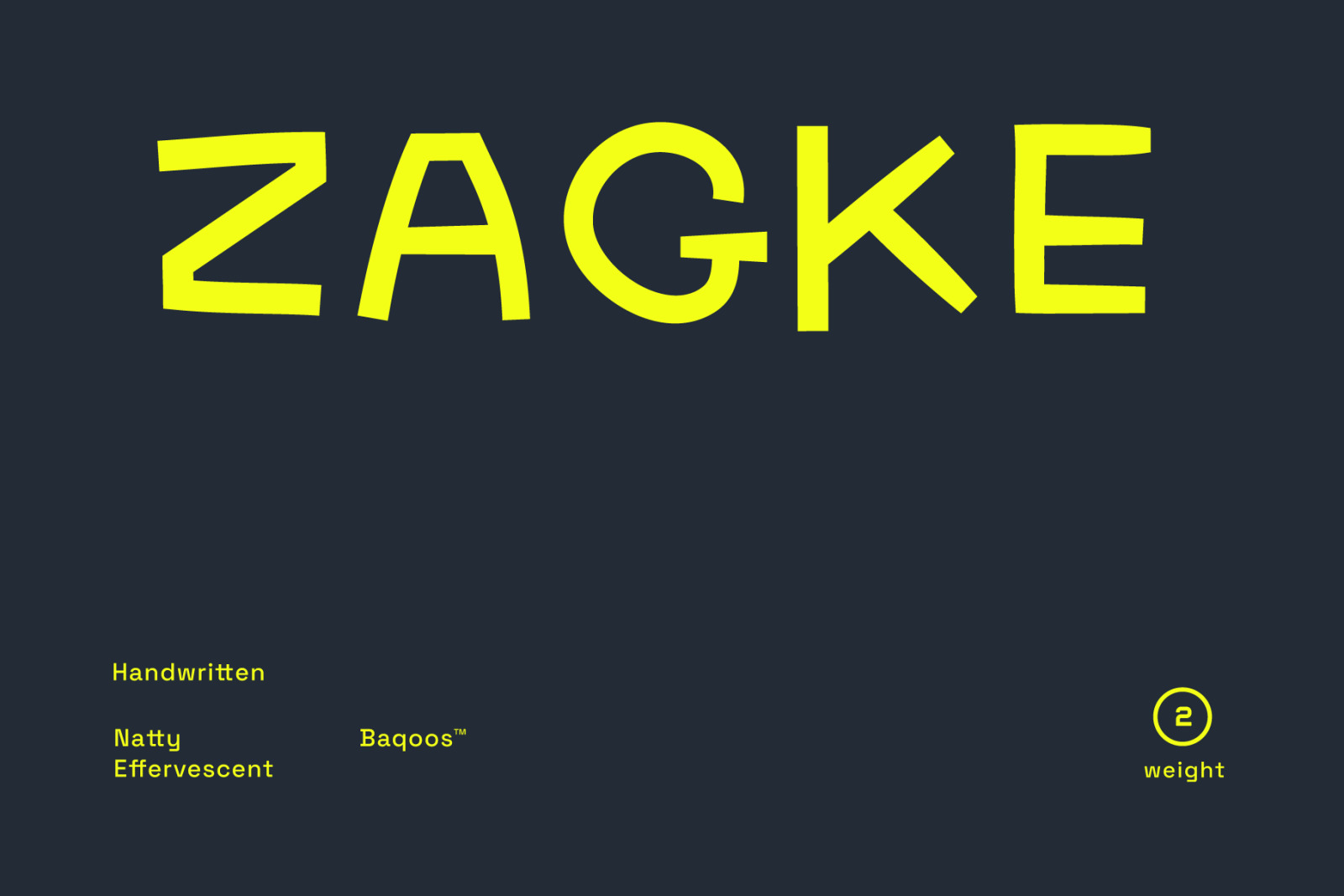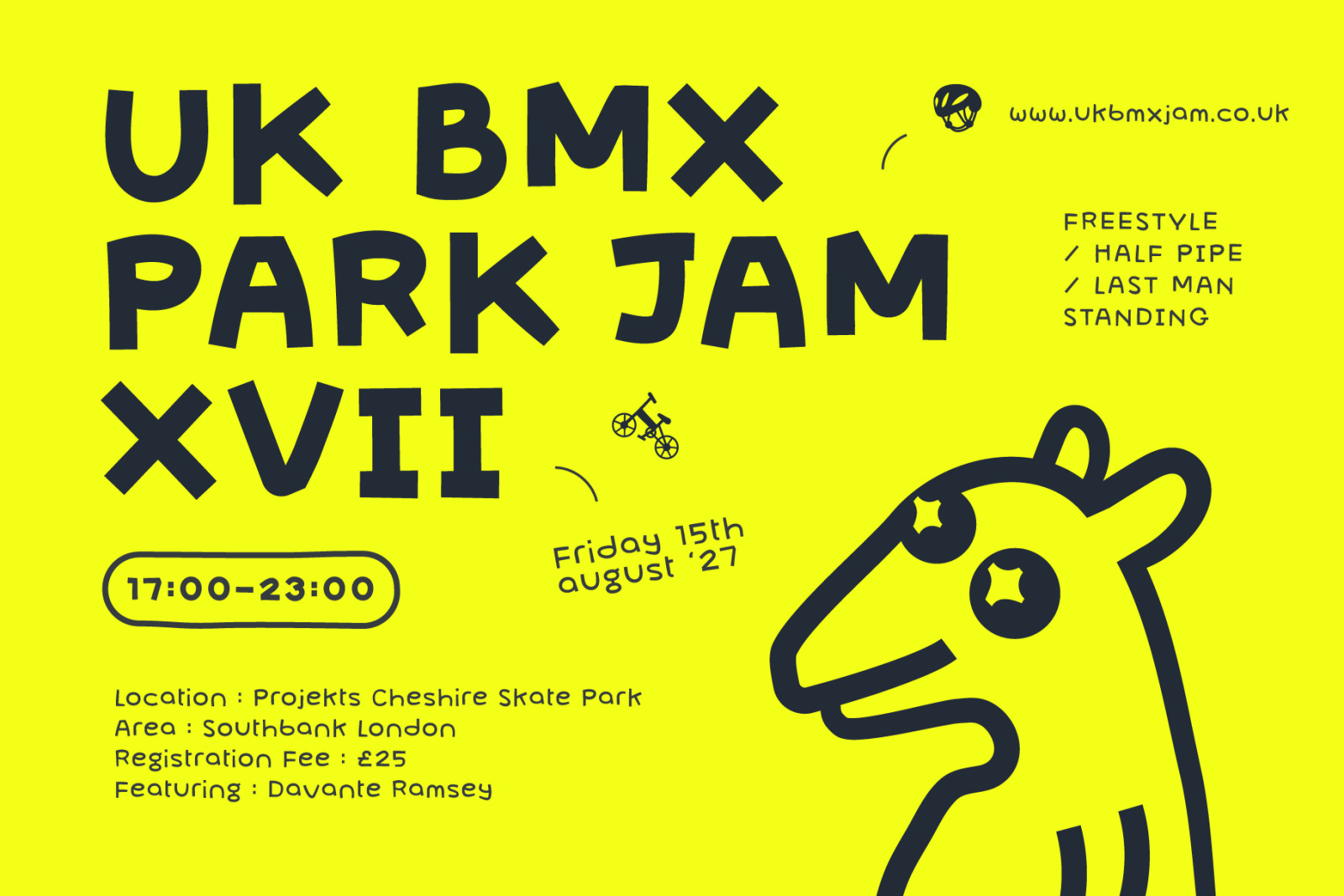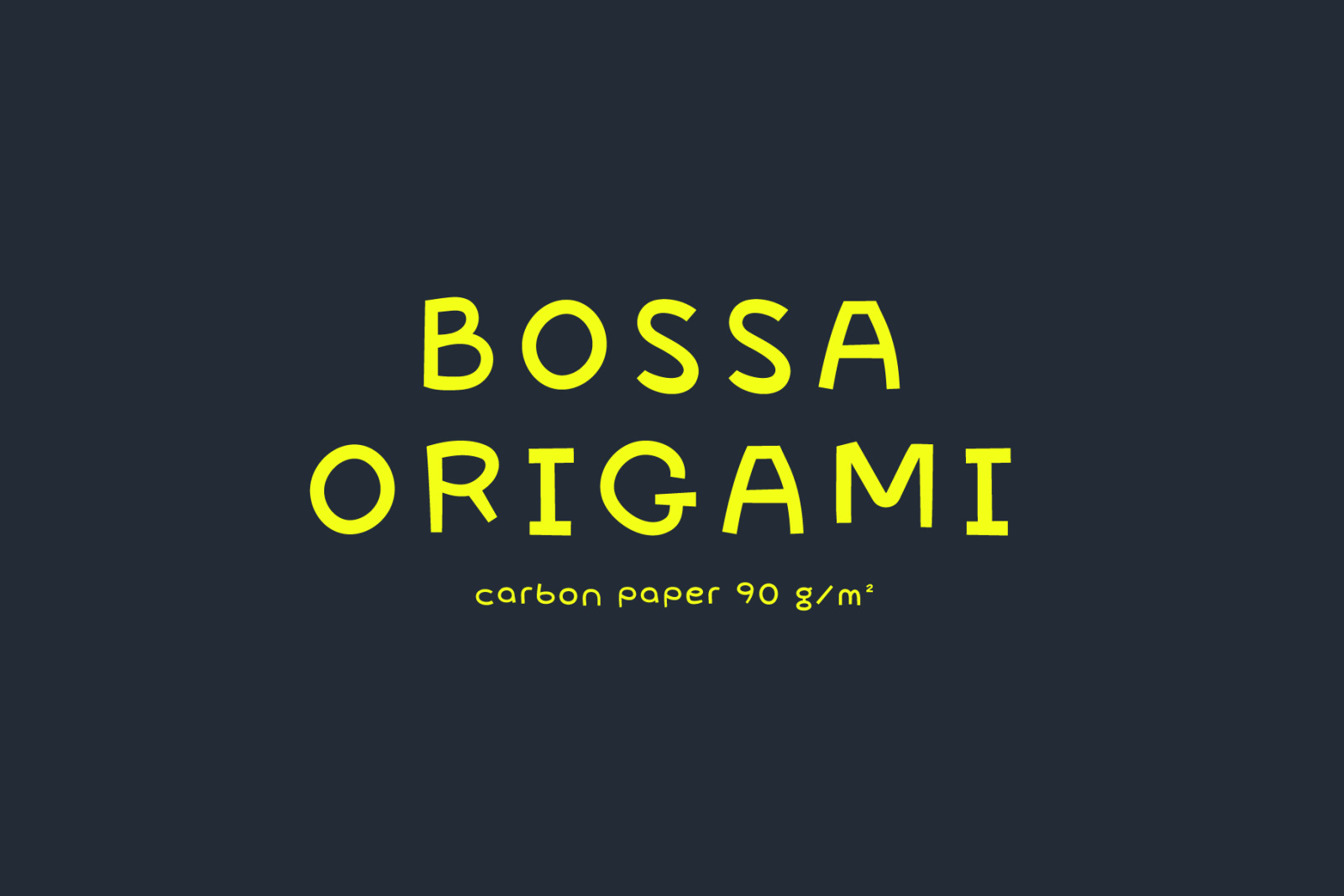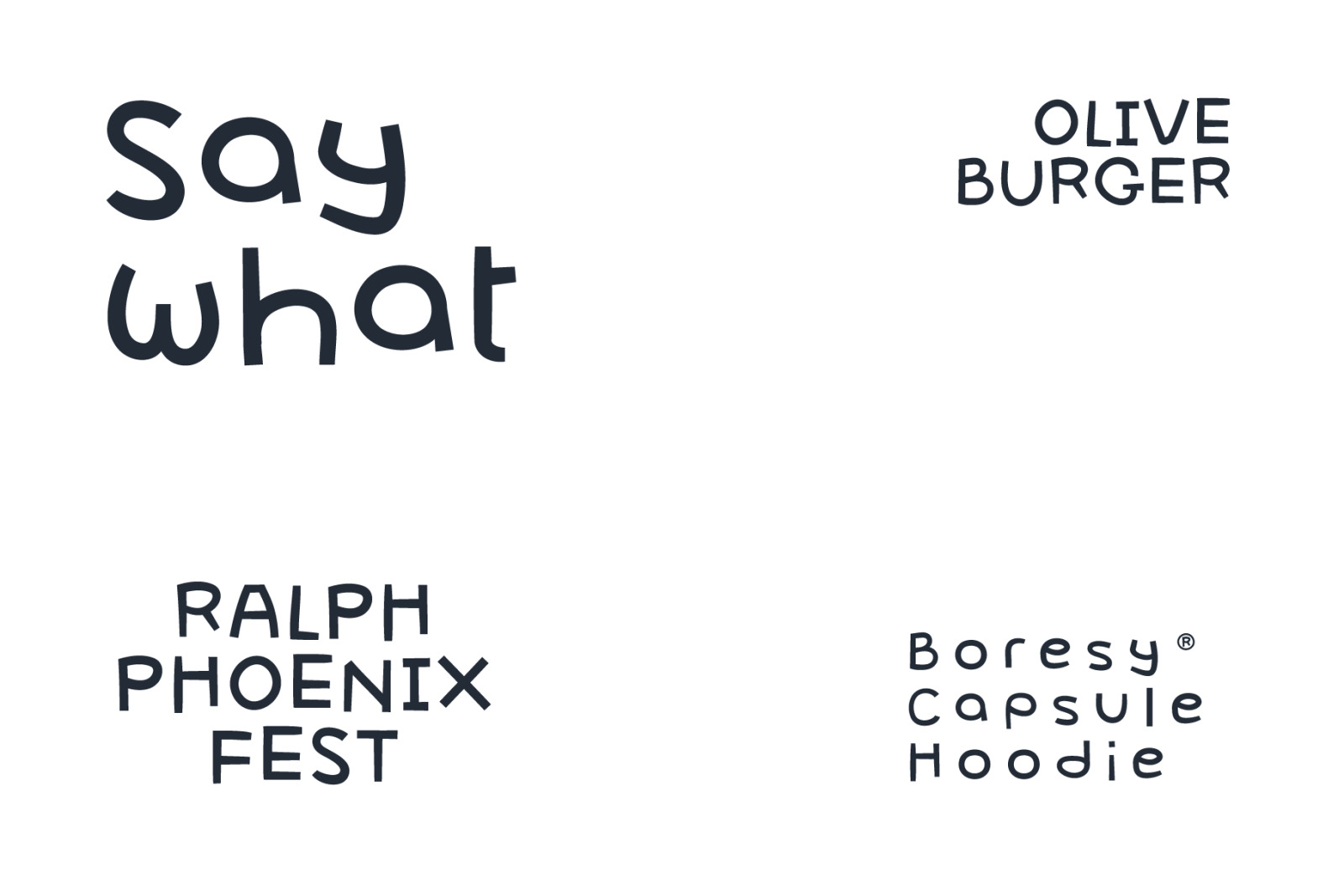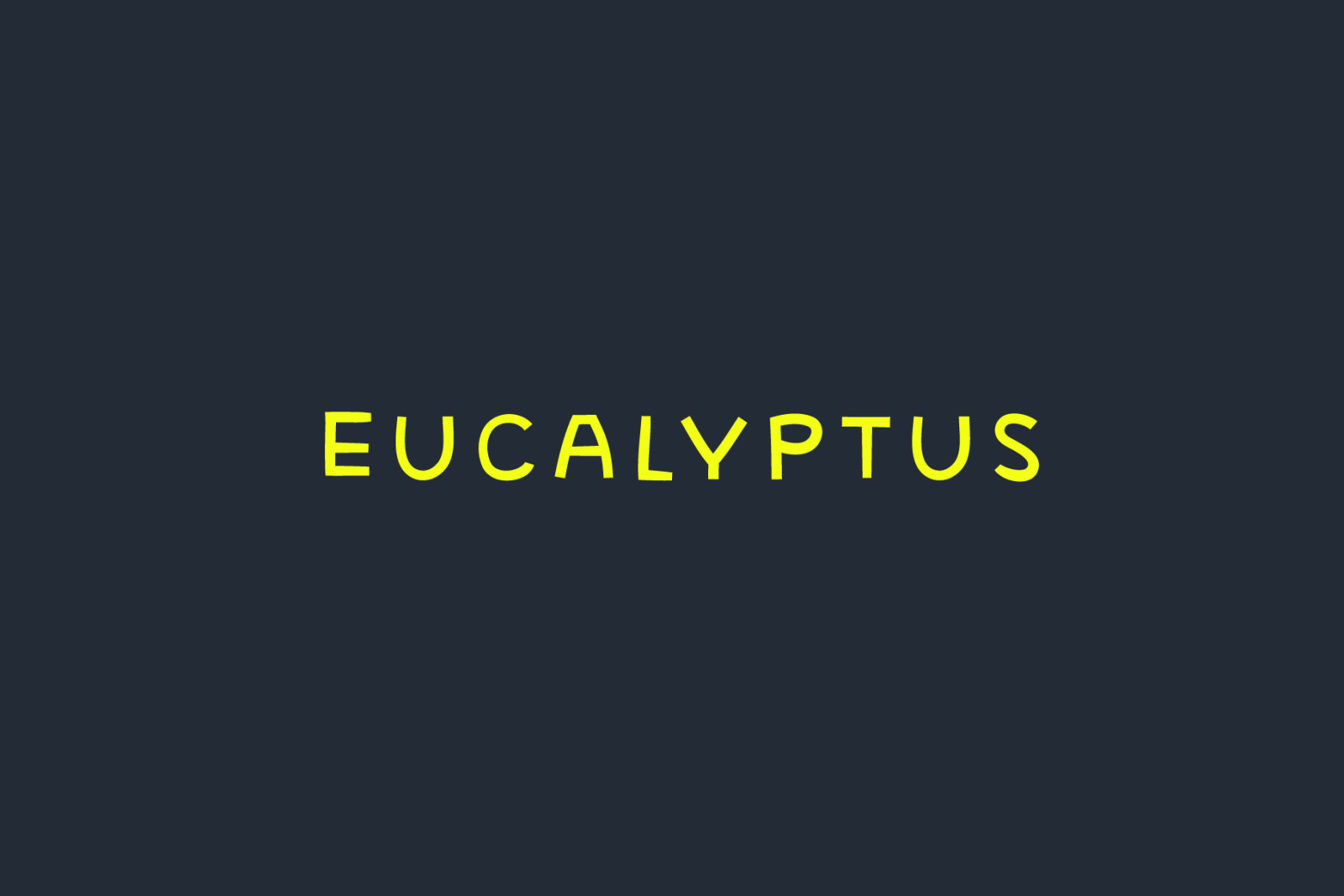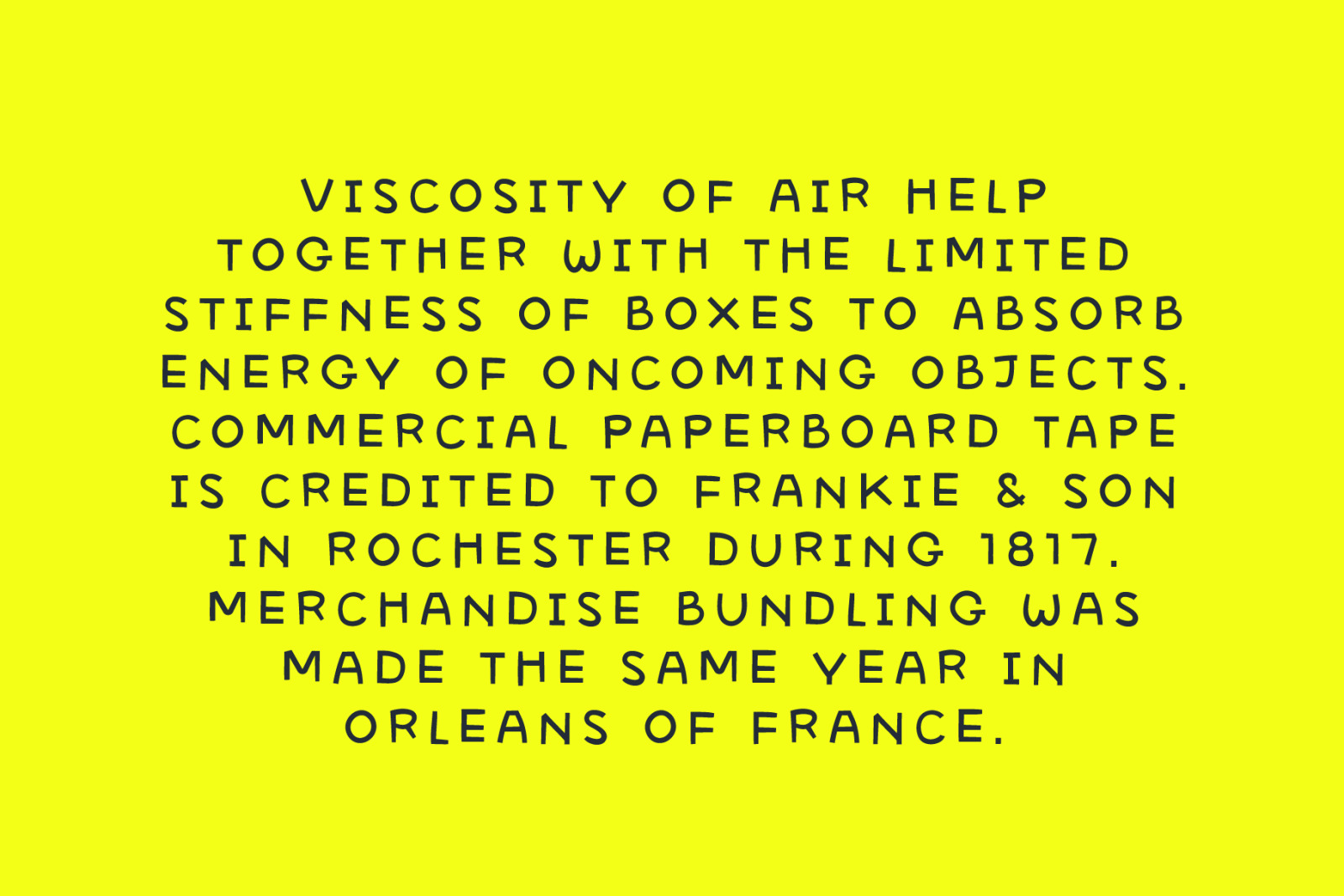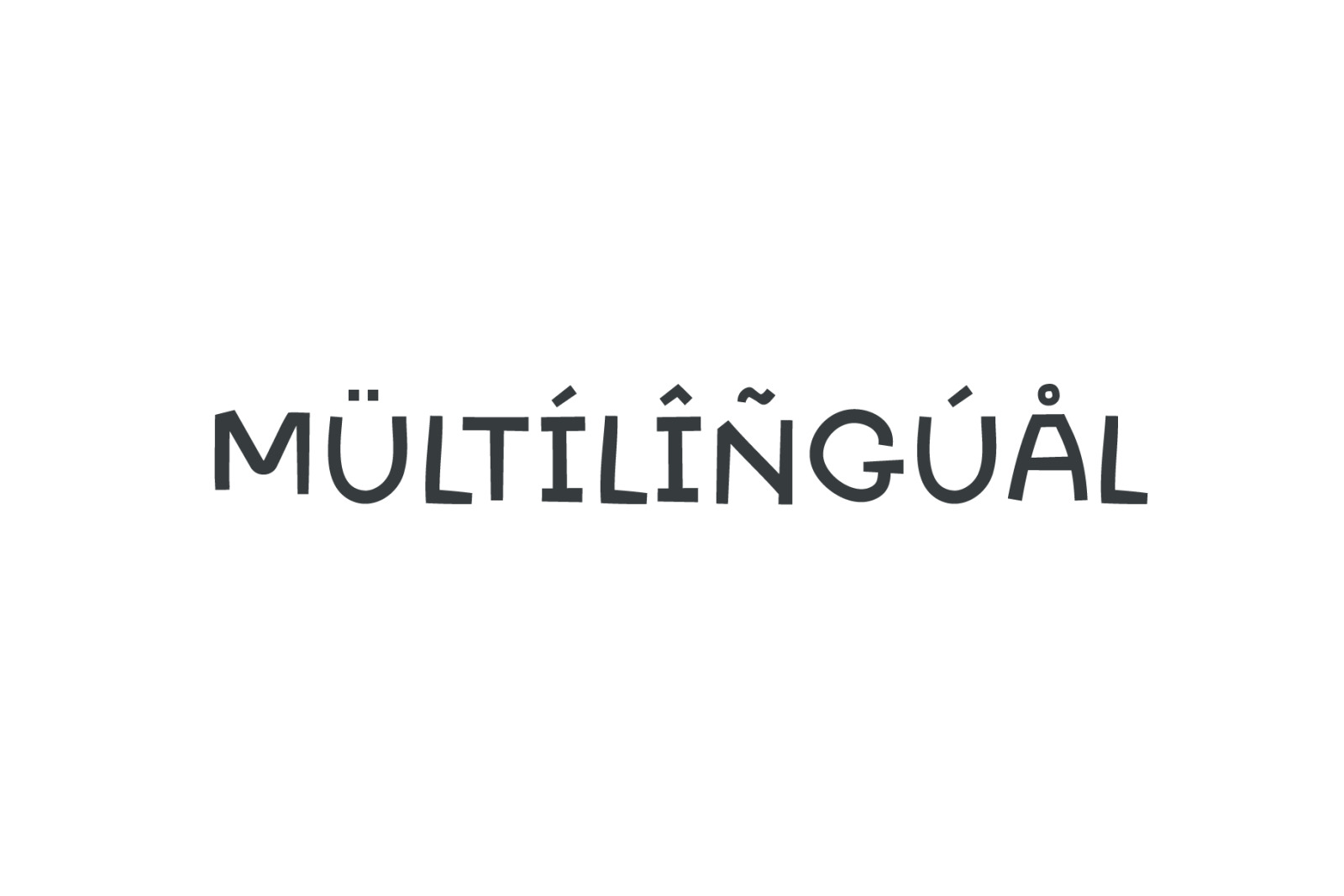
Zagke Font
Zagke is a natty effervescent handwritten typeface apt for headline, editorial, branding, packaging, printed materials and typographic applications. 200+ glyphs including punctuation and numerical.